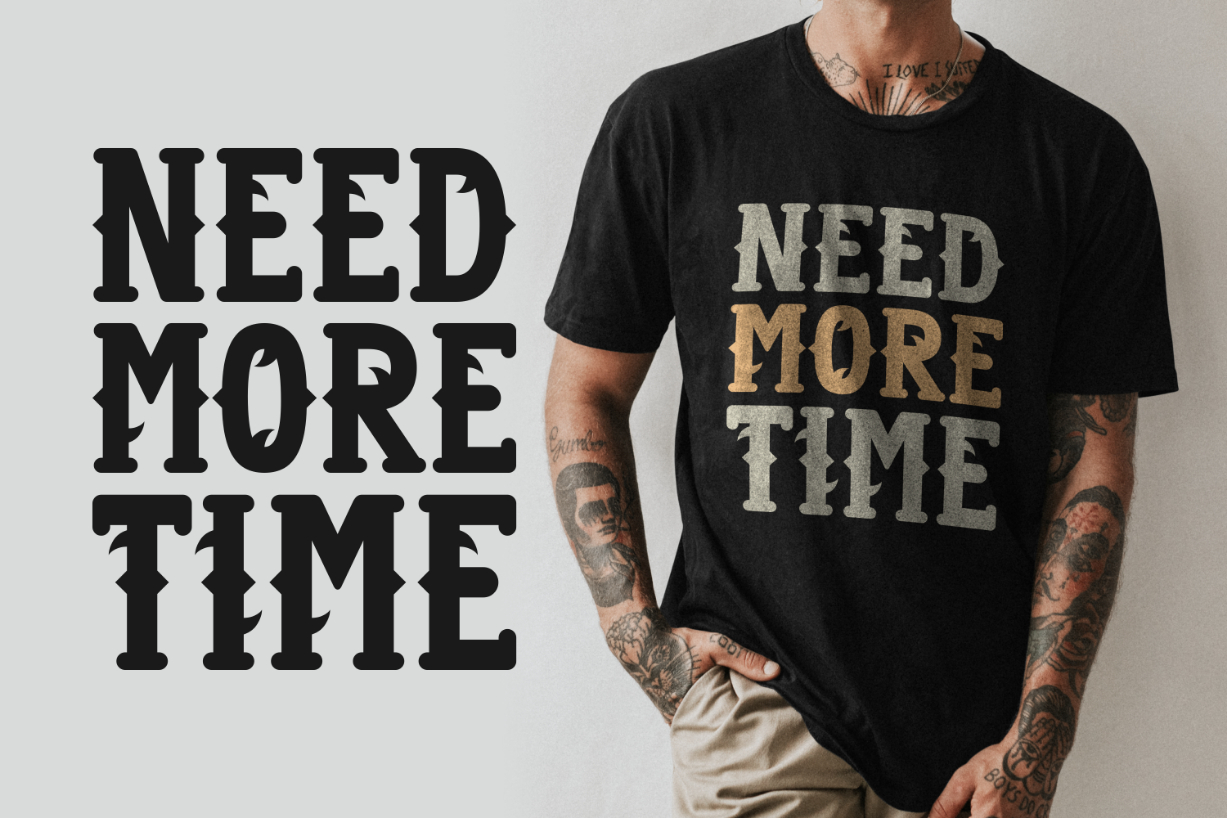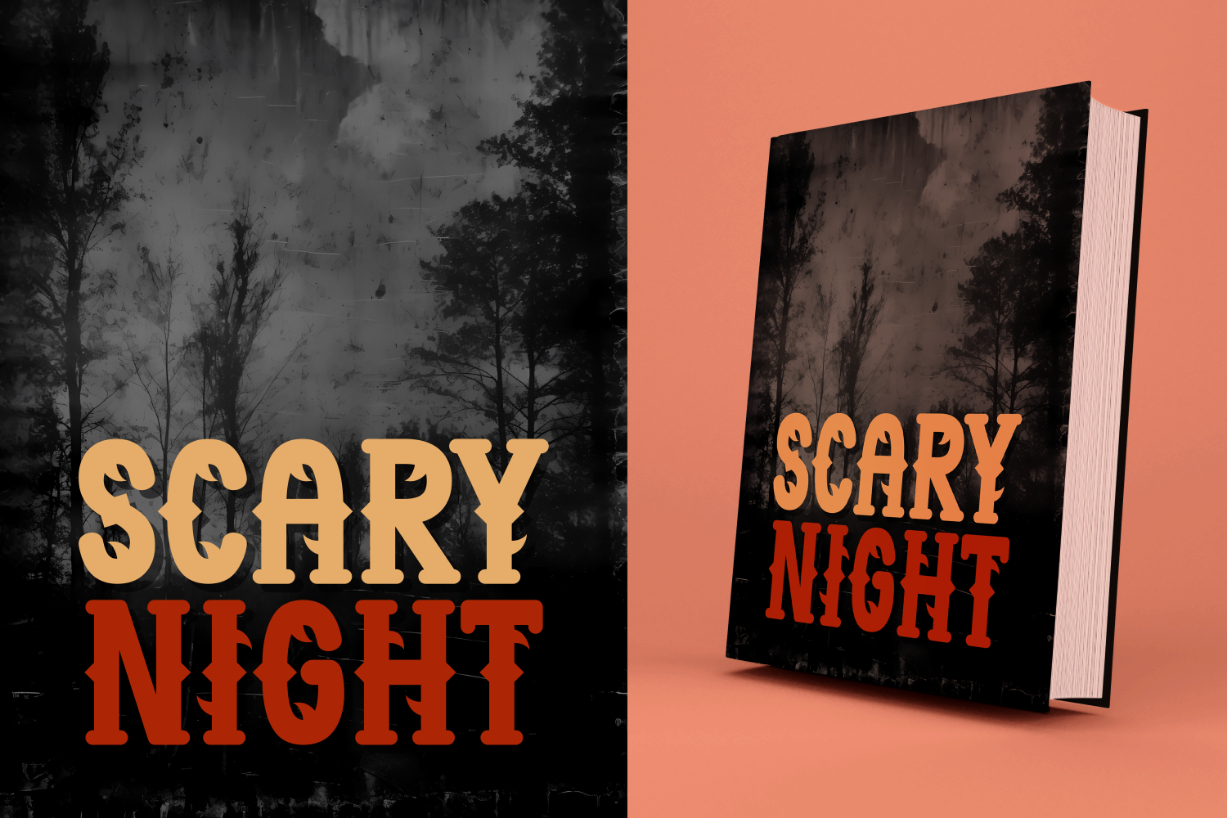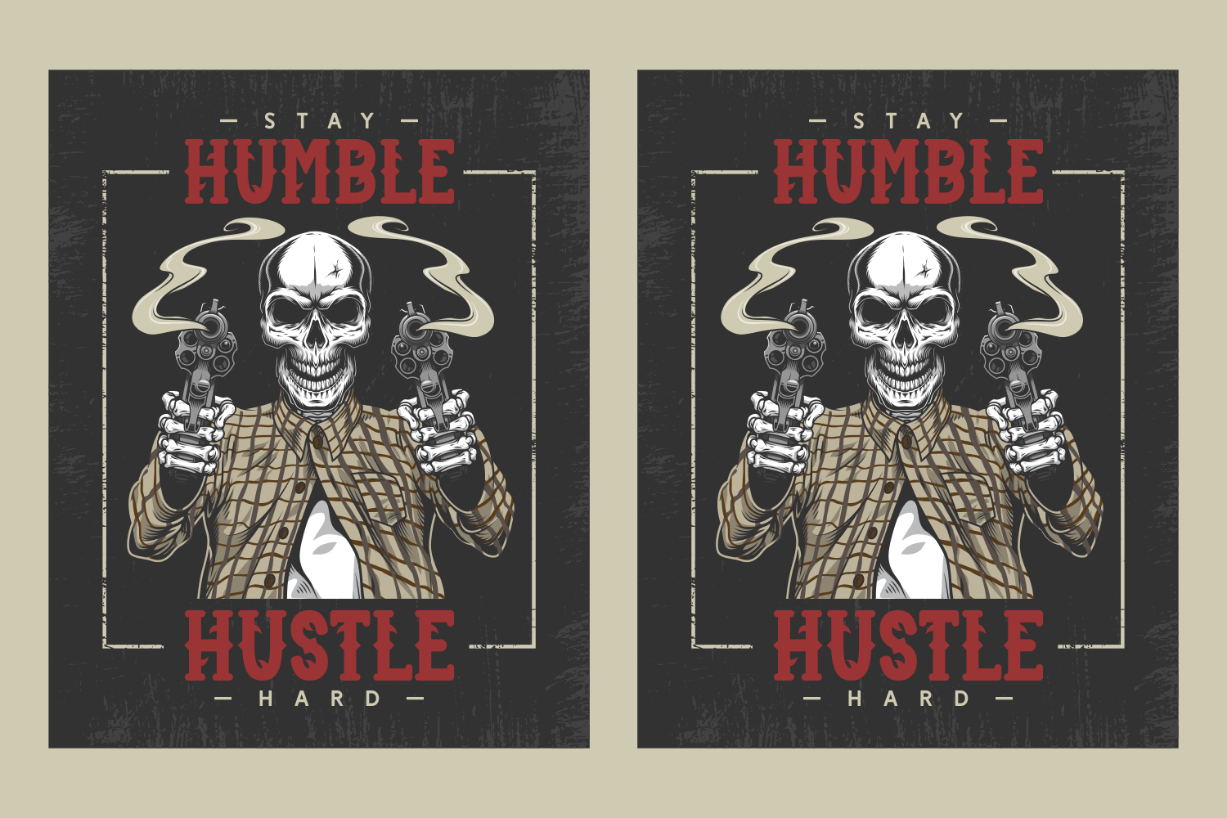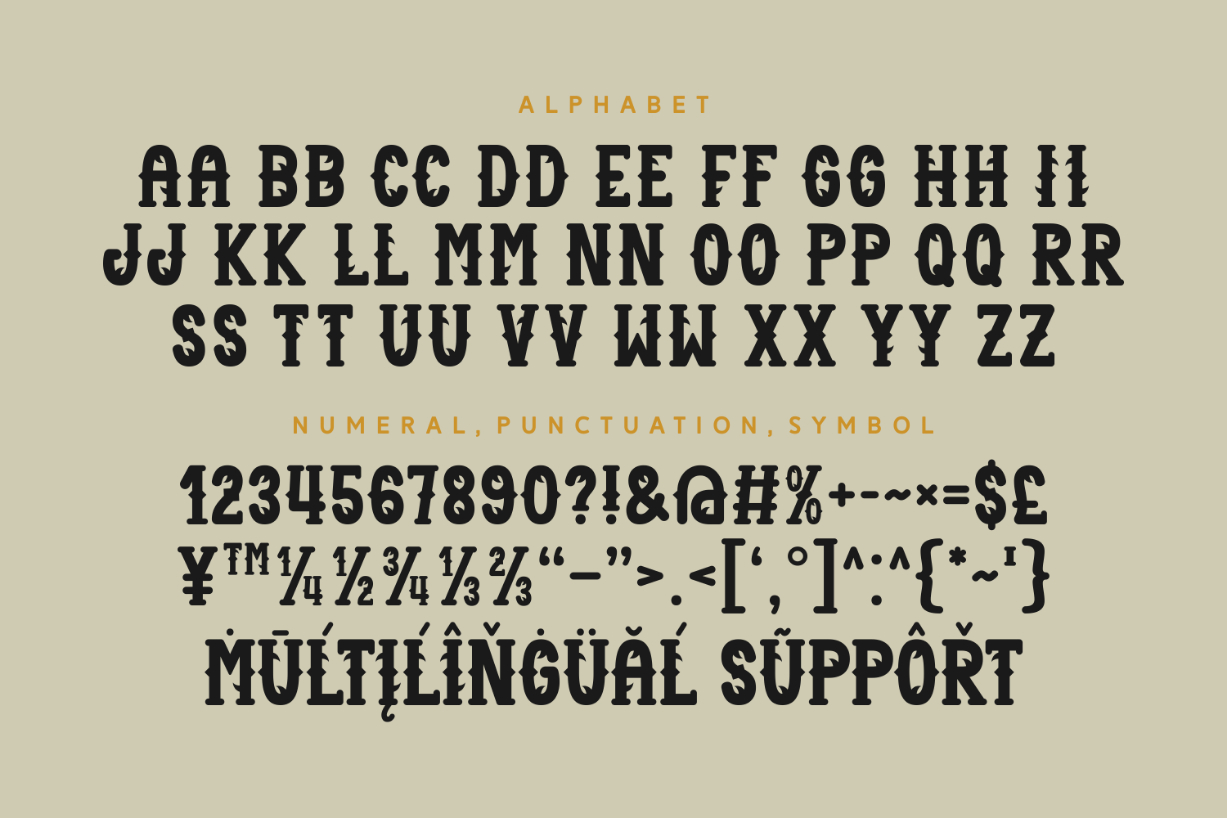
Darker Fridays Font
About Darker Fridays Font
Darker Fridays is a stylish and modern blackletter font. The thick-bodied characters feature sharp elements, giving this font its unique look. Add it to your fonts library, and use it to bring life and personality to your creative ideas!